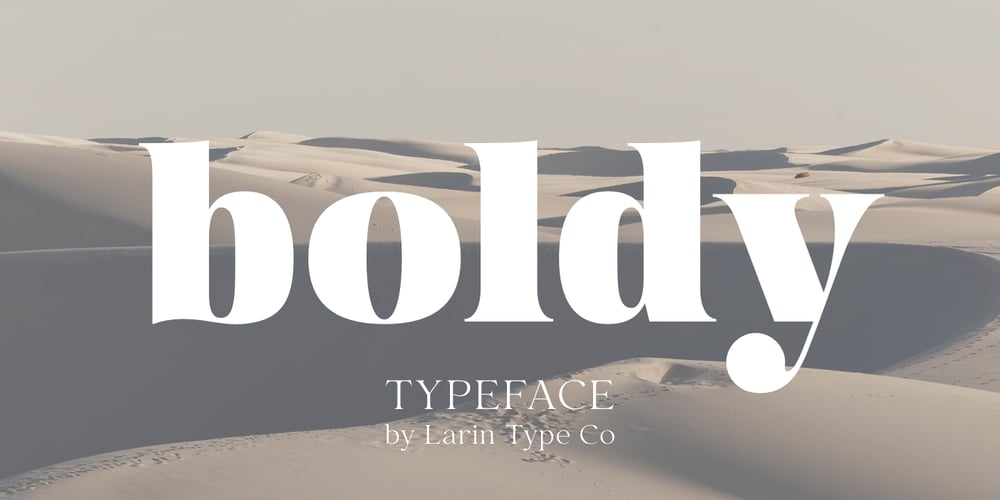
Boldy
Boldy font
Boldy Font Family was designed by Pavel Larin and published by Larin Type Co. Boldy contains 1 styles and family package options. BOLDY This is a stunning display serif font, it includes alternates for lowercase, as well as ligatures for lowercase. This multi-purpose font captures a huge range for the design and creation of your project. Laro will perfectly cope with a variety of tasks and will always look stylish and modern. With it, you can create logos, labels, advertising, packaging, branding, book covers and magazines, cosmetics, banners, posters, headings, descriptions, stationery, advertising and much more. Full alphabet with Uppercase and Lowercase A-z Numbers, fractions Punctuation and symbols Alternates for Lowercase Ligatures for Lowercase Multilingual support